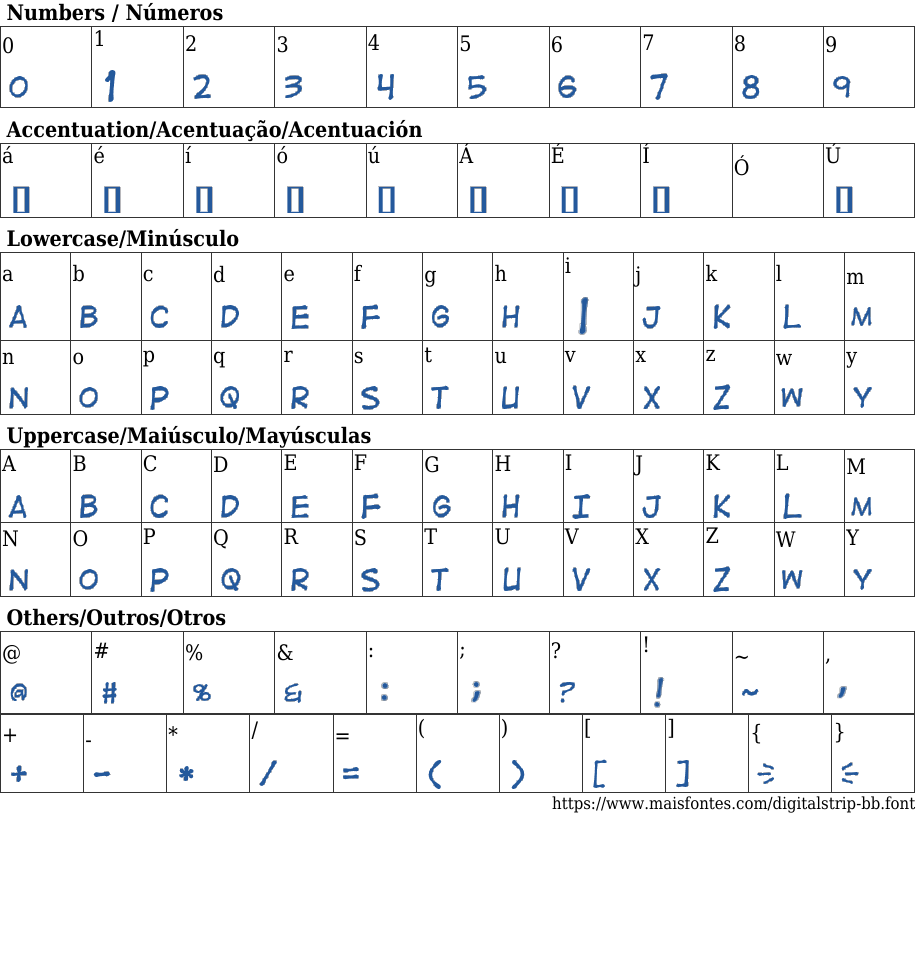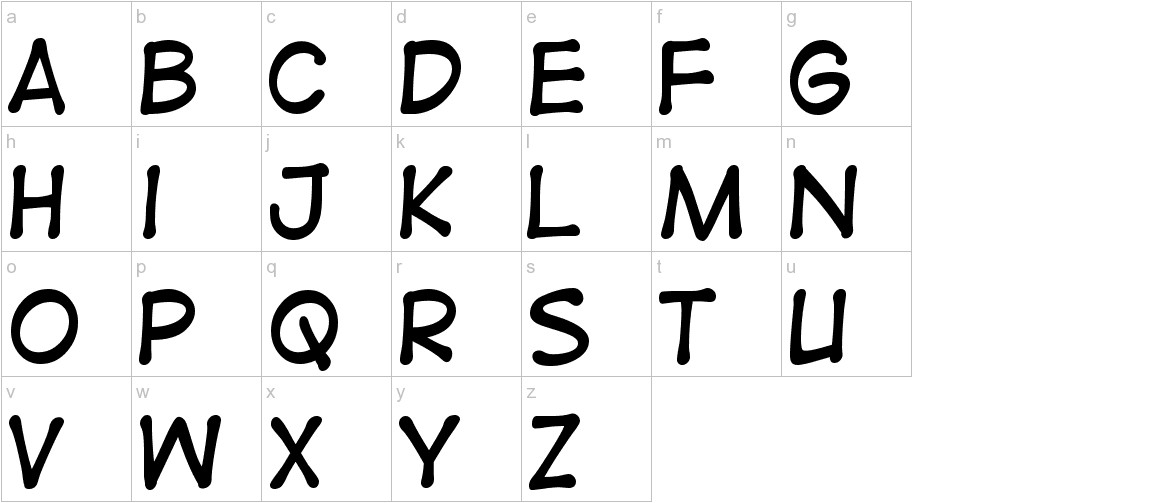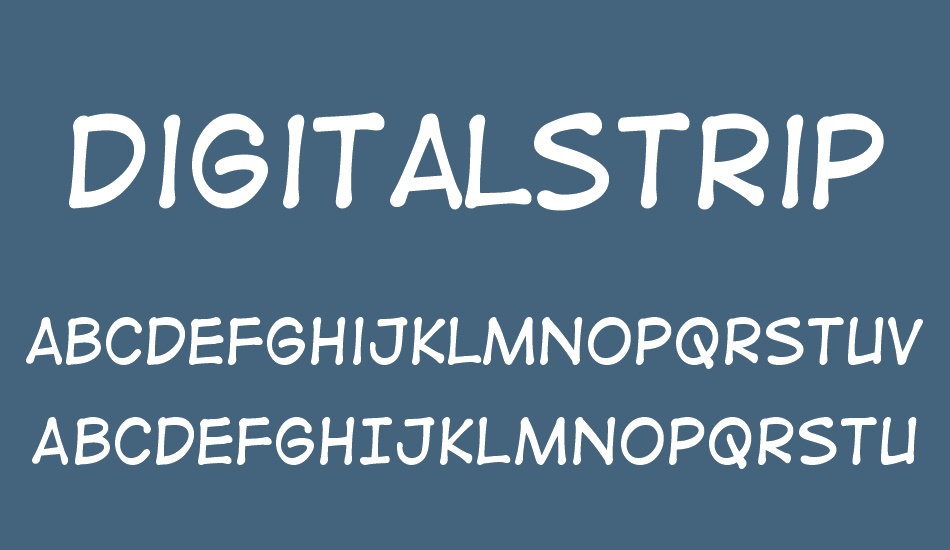
Digitalstrip Bb Font . Digitalstrip bb is the perfect font for all your fun designs. Digitalstrip bb font family designed by nate piekos has a total of 3 different styles. The font subfamily is regular. You can download the digitalstrip bb font to your. Digital strip 2 bb is a free font for personal use created by blambot comic fonts. Digital strip 2 bb is a handwritten type font that can be used on. The font was designed by nate piekos and free for. Digital strip bb is a free font for personal use created by blambot comic fonts. Moreover, you can embed it to your website. Digital strip bb font download is available free from fontget. Free download of digitalstrip 2.0 bb font family with 3 styles.
Digital strip bb font download is available free from fontget. Free download of digitalstrip 2.0 bb font family with 3 styles. The font was designed by nate piekos and free for. Moreover, you can embed it to your website. Digitalstrip bb font family designed by nate piekos has a total of 3 different styles. Digitalstrip bb is the perfect font for all your fun designs. You can download the digitalstrip bb font to your. Digital strip bb is a free font for personal use created by blambot comic fonts. Digital strip 2 bb is a free font for personal use created by blambot comic fonts. The font subfamily is regular.
Digitalstrip Bb Font You can download the digitalstrip bb font to your. Moreover, you can embed it to your website. Digital strip 2 bb is a free font for personal use created by blambot comic fonts. Digitalstrip bb is the perfect font for all your fun designs. The font was designed by nate piekos and free for. The font subfamily is regular. Digital strip bb font download is available free from fontget. You can download the digitalstrip bb font to your. Digital strip 2 bb is a handwritten type font that can be used on. Digital strip bb is a free font for personal use created by blambot comic fonts. Digitalstrip bb font family designed by nate piekos has a total of 3 different styles. Free download of digitalstrip 2.0 bb font family with 3 styles.
DigitalStrip Bold font Digitalstrip Bb Font Digitalstrip bb font family designed by nate piekos has a total of 3 different styles. Digitalstrip bb is the perfect font for all your fun designs. Digital strip bb font download is available free from fontget. Digital strip 2 bb is a handwritten type font that can be used on. You can download the digitalstrip bb font to your. Digital. Digitalstrip Bb Font.
DigitalStrip BB Italic 2.000 Fonts Free Download Digitalstrip Bb Font The font was designed by nate piekos and free for. Moreover, you can embed it to your website. Free download of digitalstrip 2.0 bb font family with 3 styles. Digital strip 2 bb is a handwritten type font that can be used on. The font subfamily is regular. Digital strip bb is a free font for personal use created by. Digitalstrip Bb Font.
DigitalStrip Font Digitalstrip Bb Font Moreover, you can embed it to your website. The font was designed by nate piekos and free for. Free download of digitalstrip 2.0 bb font family with 3 styles. You can download the digitalstrip bb font to your. Digital strip bb is a free font for personal use created by blambot comic fonts. Digital strip bb font download is available. Digitalstrip Bb Font.
DigitalStrip BB Font Family Download Free for Desktop & font Digitalstrip Bb Font Digital strip 2 bb is a free font for personal use created by blambot comic fonts. Digital strip bb is a free font for personal use created by blambot comic fonts. Digitalstrip bb is the perfect font for all your fun designs. The font subfamily is regular. The font was designed by nate piekos and free for. Free download of. Digitalstrip Bb Font.
Digital Strip free font Digitalstrip Bb Font Digitalstrip bb font family designed by nate piekos has a total of 3 different styles. The font subfamily is regular. Digital strip 2 bb is a free font for personal use created by blambot comic fonts. Free download of digitalstrip 2.0 bb font family with 3 styles. Moreover, you can embed it to your website. Digital strip 2 bb is. Digitalstrip Bb Font.
Digital Strip Bb Font FREE Download & Similar Fonts FontGet Digitalstrip Bb Font You can download the digitalstrip bb font to your. Digital strip bb font download is available free from fontget. Digital strip 2 bb is a handwritten type font that can be used on. The font was designed by nate piekos and free for. Free download of digitalstrip 2.0 bb font family with 3 styles. Moreover, you can embed it to. Digitalstrip Bb Font.
DigitalStrip font Digitalstrip Bb Font Digitalstrip bb is the perfect font for all your fun designs. The font was designed by nate piekos and free for. You can download the digitalstrip bb font to your. The font subfamily is regular. Digital strip bb is a free font for personal use created by blambot comic fonts. Digital strip bb font download is available free from fontget.. Digitalstrip Bb Font.
Self Destruct Button BB Font Free Download Digitalstrip Bb Font Digital strip 2 bb is a free font for personal use created by blambot comic fonts. The font was designed by nate piekos and free for. Digital strip bb font download is available free from fontget. Digitalstrip bb font family designed by nate piekos has a total of 3 different styles. Digitalstrip bb is the perfect font for all your. Digitalstrip Bb Font.
DigitalStrip BB Font Family free font Digitalstrip Bb Font Digitalstrip bb font family designed by nate piekos has a total of 3 different styles. Digital strip 2 bb is a handwritten type font that can be used on. The font was designed by nate piekos and free for. You can download the digitalstrip bb font to your. Free download of digitalstrip 2.0 bb font family with 3 styles. Digital. Digitalstrip Bb Font.
DigitalStrip BB Regular Download For Free, View Sample Text, Rating Digitalstrip Bb Font Free download of digitalstrip 2.0 bb font family with 3 styles. The font subfamily is regular. Digital strip bb is a free font for personal use created by blambot comic fonts. Digitalstrip bb is the perfect font for all your fun designs. Moreover, you can embed it to your website. Digitalstrip bb font family designed by nate piekos has a. Digitalstrip Bb Font.